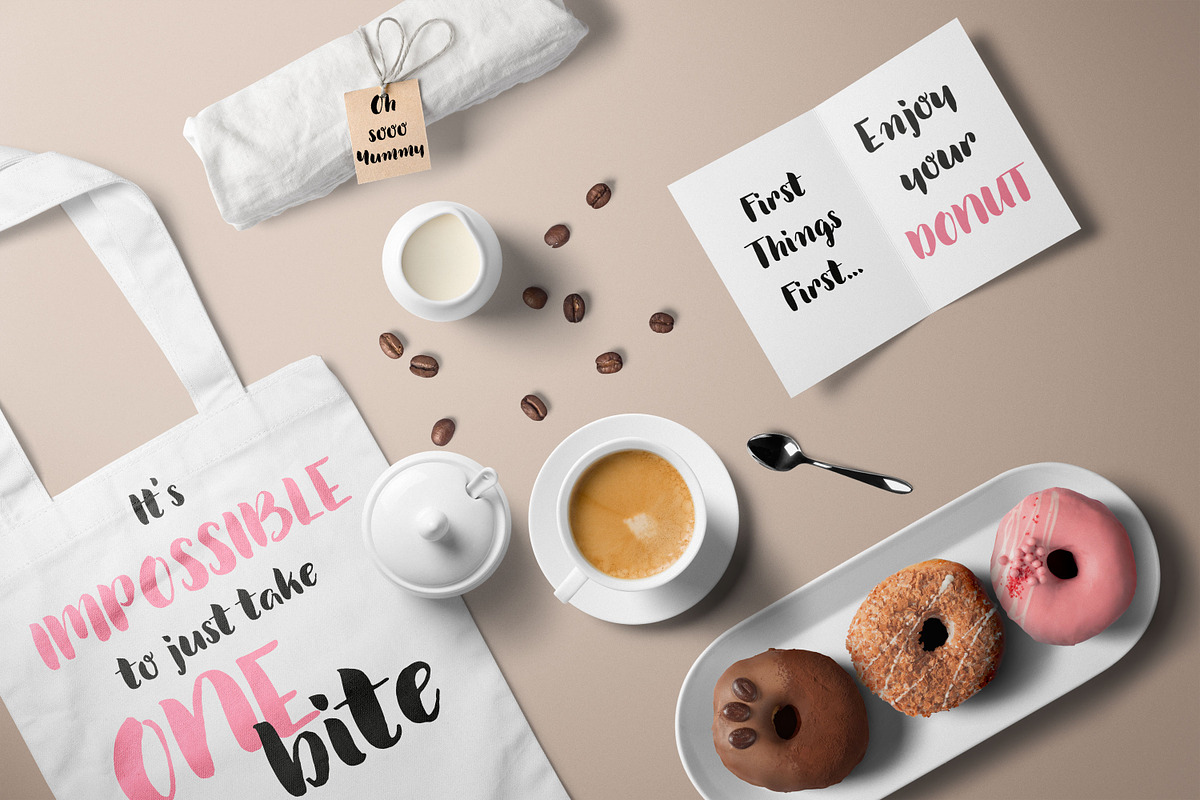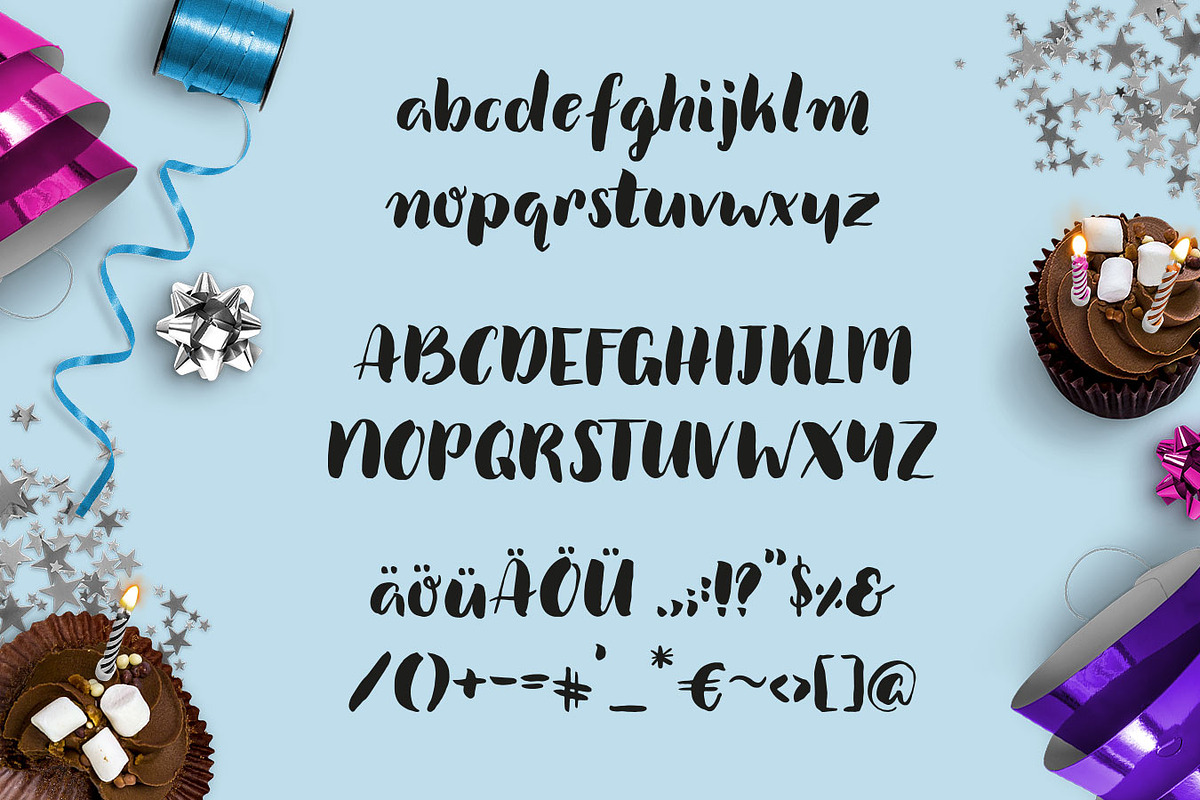
Chocolate Cupcakes- Handwritten Font
Chocolate Cupcakes- Handwritten Font by Ruth Lange Design is a font selected for branding, posters, packaging, typography.
Why Chocolate Cupcakes- Handwritten Font is worth a look
Chocolate Cupcakes- Handwritten Font by Ruth Lange Design fits naturally into Branding, posters, packaging, typography.